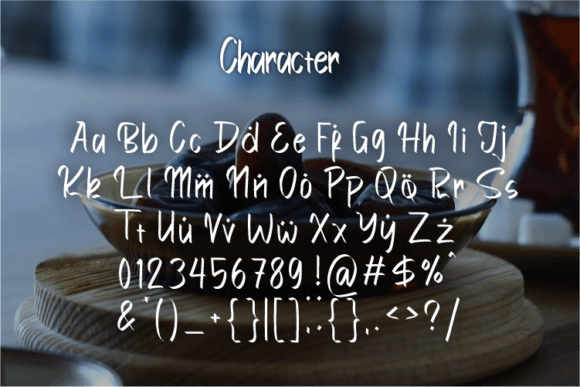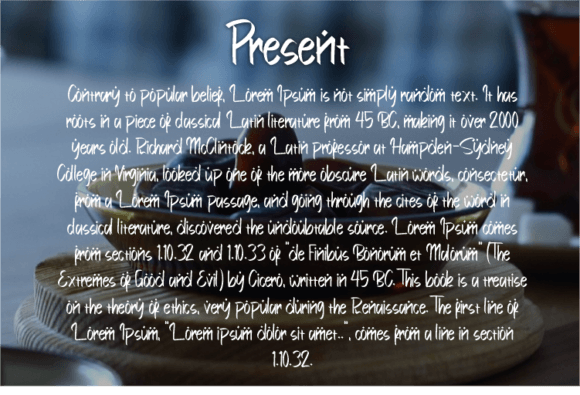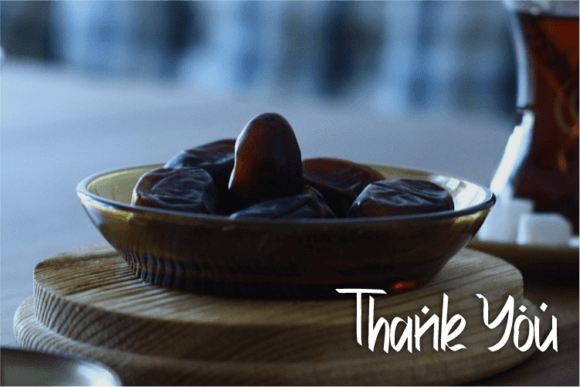
Unlock the Magic of Islamic Design with Bulan Ramadhan Font
Have you ever been inspired by the intricate calligraphy of a mosque’s intricate archways or the elegant script on a traditional Islamic manuscript? As a designer, I know how captivating these elements can be. For me, it was during a trip to a bustling souk in the Middle East that I stumbled upon the Bulan Ramadhan Font – a beautiful script typeface that exudes simplicity, modernity, and an air of sophistication.
Bulan Ramadhan Font is a versatile typeface perfect for creating elegant and luxurious logos, book titles, and magazine covers. Its simplicity and modern look make it an ideal choice for designers looking to add a touch of Islamic flair to their projects. With Bulan Ramadhan Font, designers can create stunning visual identities for fashion brands, clothing labels, and more – all while paying homage to the rich cultural heritage of Islamic design.
Bulan Ramadhan Font Key Features
- Font Style: A unique, handwritten font specifically designed for the Islamic holy month of Ramadan, perfect for creating a festive atmosphere.
- Language Support: Supports a wide range of languages, including Arabic, English, and other languages used in Islamic communities.
- Unique Characteristics: Features intricate, hand-drawn designs and ornaments, adding a touch of elegance and sophistication to any text.
Bulan Ramadhan Font Review
Overall, I think the Bulan Ramadhan Font is a unique and visually appealing option for those looking for a font specifically designed for Ramadan celebrations. ✨ Here are some things that I think work well:
- The font’s elegant and cursive style is perfect for traditional and modern Ramadan-themed designs.
- The inclusion of Ramadan-related words and phrases in the font is a thoughtful touch, adding to its cultural significance.
- The font’s bold and regular weights provide versatility for different design applications.
- ⚠️ The font’s character set is limited, which may not be suitable for extensive typing or complex designs.
- ⚠️ The font’s aesthetic may not appeal to everyone, particularly those who prefer more modern or minimalist designs.
Overall, I think the Bulan Ramadhan Font is a great option for those looking for a unique and culturally significant font for Ramadan-themed designs. While it has some limitations, its strengths make it a worthwhile choice for the right projects.
To get the most out of the Bulan Ramadhan font, try the following:
- Use it in combination with other Islamic-themed graphics and fonts.
- Experiment with different font sizes, colors, and styles to create a unique look.
- Use it to create eye-catching titles, headings, and quotes.
The Bulan Ramadhan font is commonly used in:
- Islamic-themed posters and flyers.